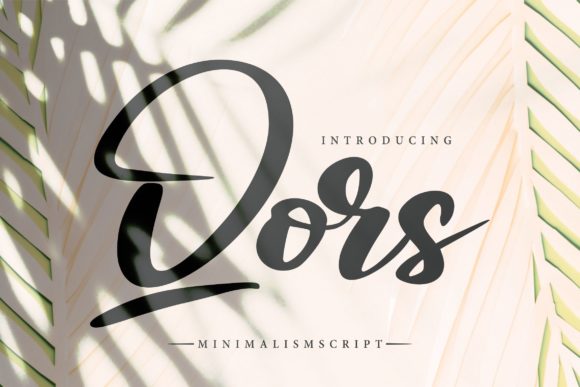
Introducing Qors Font, a breathtaking script that will ignite your creativity and leave an unforgettable impression on your audience. With its enchanting calligraphic style, Qors possesses an ethereal charm that dances across your designs, transforming them into masterpieces.
Indulge in the allure of Qors, where each letter flows seamlessly with an effortless grace, echoing the artistry of a master penman. Whether you're crafting captivating invitations, enchanting social media posts, or designing elegant branding, Qors will elevate your vision to new heights.
Lose yourself in the endless possibilities that await you with Qors. Its versatility knows no bounds, allowing you to create projects that exude sophistication and charm. From delicate wedding invitations that whisper sweet nothings to bold and captivating headlines that demand attention, Qors is your trusted companion on the path to design excellence.
With Qors, you'll find yourself reaching for your creative heights, infusing your designs with an enchanting touch that sets them apart. Its captivating curves and elegant flourishes will ignite your imagination, inspiring you to create designs that leave an indelibly charming impression on your audience.
Embrace the allure of Qors today and embark on a journey where your designs blossom into captivating works of art. Let Qors be your guiding light, leading you towards creative triumphs that will captivate and enchant.